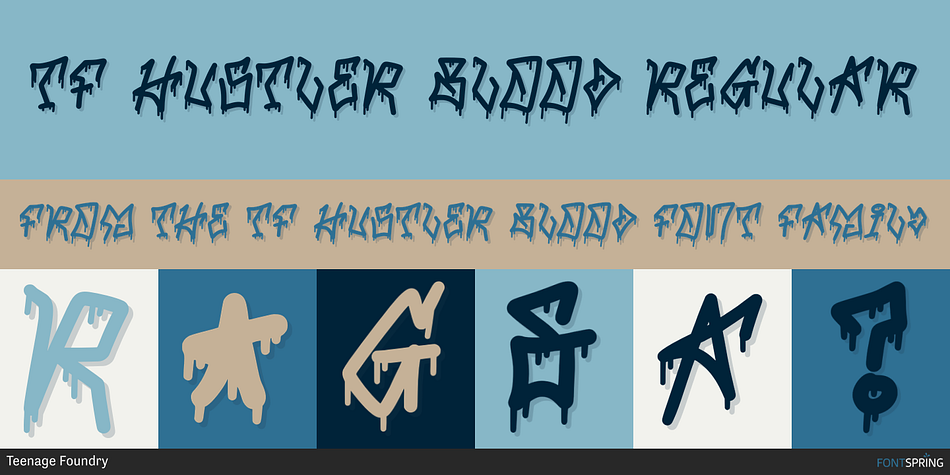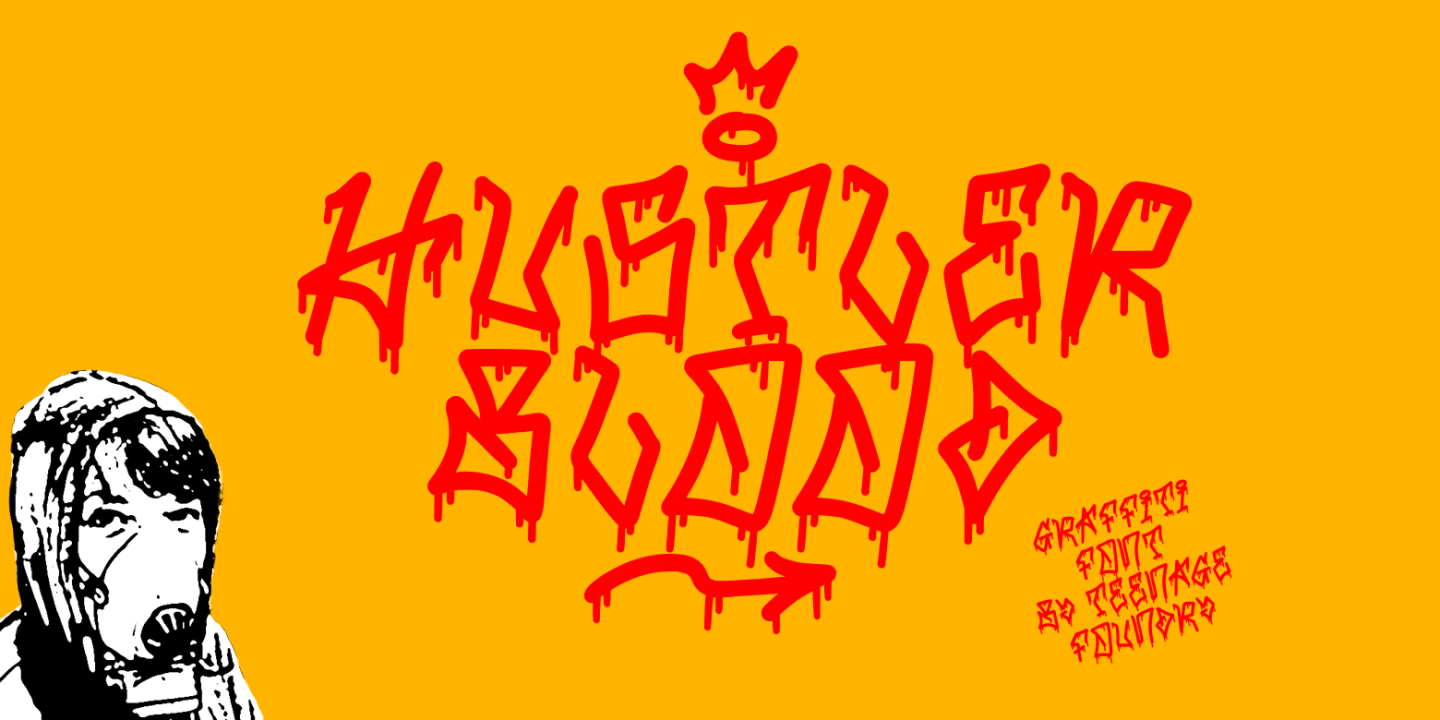
TF HUSTLER BLOOD REGULAR
TF Hustler Blood is a grunge font family published by Teenage Foundry.
TF Hustler Blood Graffiti Font - a unique and exciting design that is sure to add a splash of creativity to your projects! Our font features a monoline style that is complemented by a vibrant splash of paint, giving your designs a unique and eye-catching look.
we’ve also included several alternative that are perfect for supporting the graffiti style. These alternative give you even more flexibility and allow you to create designs that are truly unique and individual.
The monoline style gives the font a clean and modern look, while the splash of paint adds a touch of creativity and spontaneity.